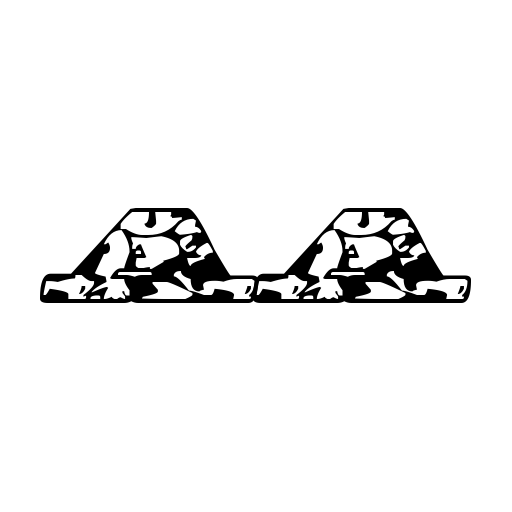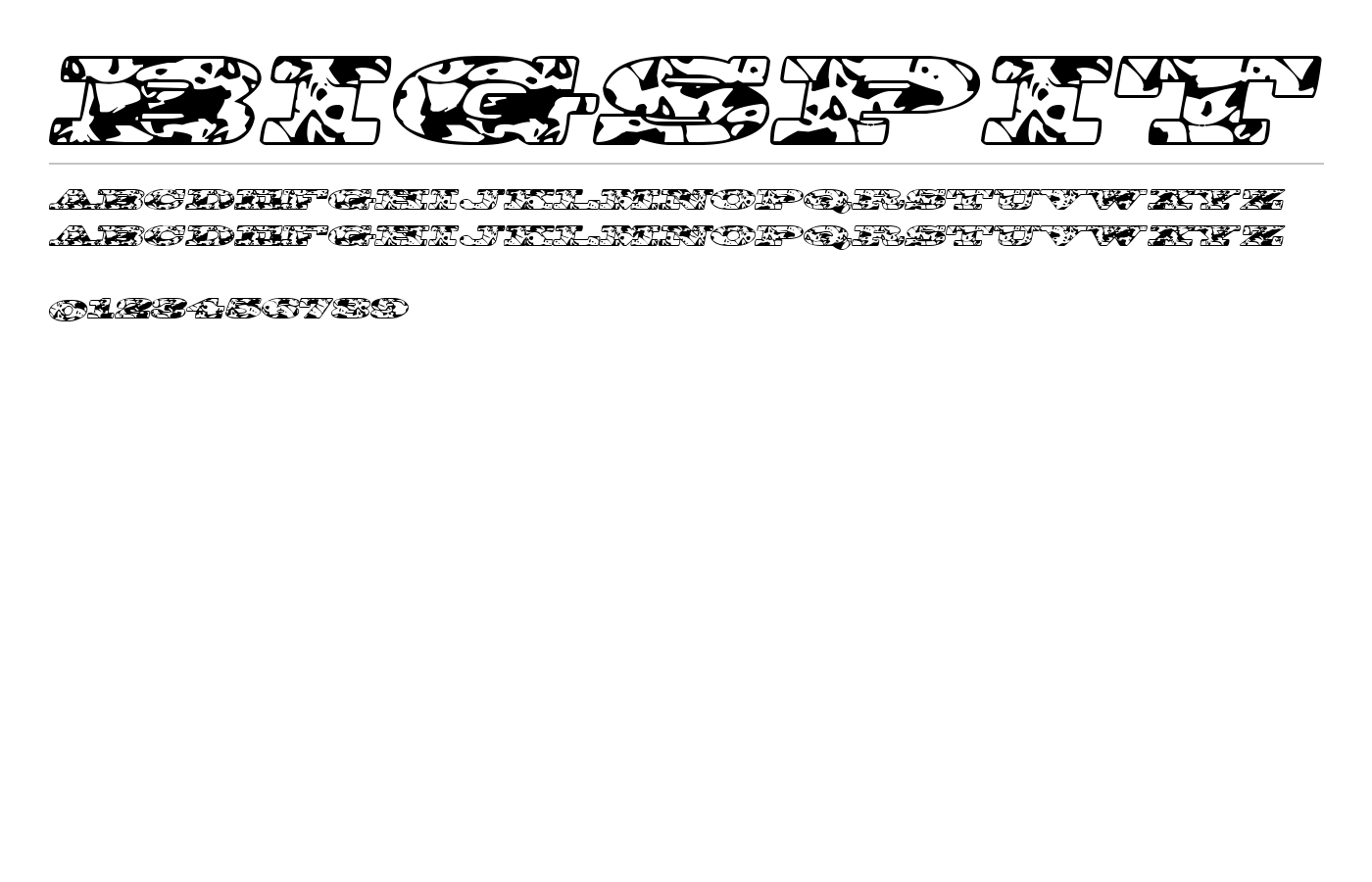
BigSpit is a bold, decorative slab serif font featuring a textured, irregular pattern within its thick letterforms, giving it a distinctive and playful appearance. Its strong, blocky shape combined with a lively, almost hand-painted surface makes it ideal for eye-catching headlines, logos, and creative projects that want to convey energy and uniqueness. This font works best where bold expression and visual interest are key, such as in posters, branding, and packaging that call for a fun yet impactful style.
BigSpit Font
About BigSpit Font